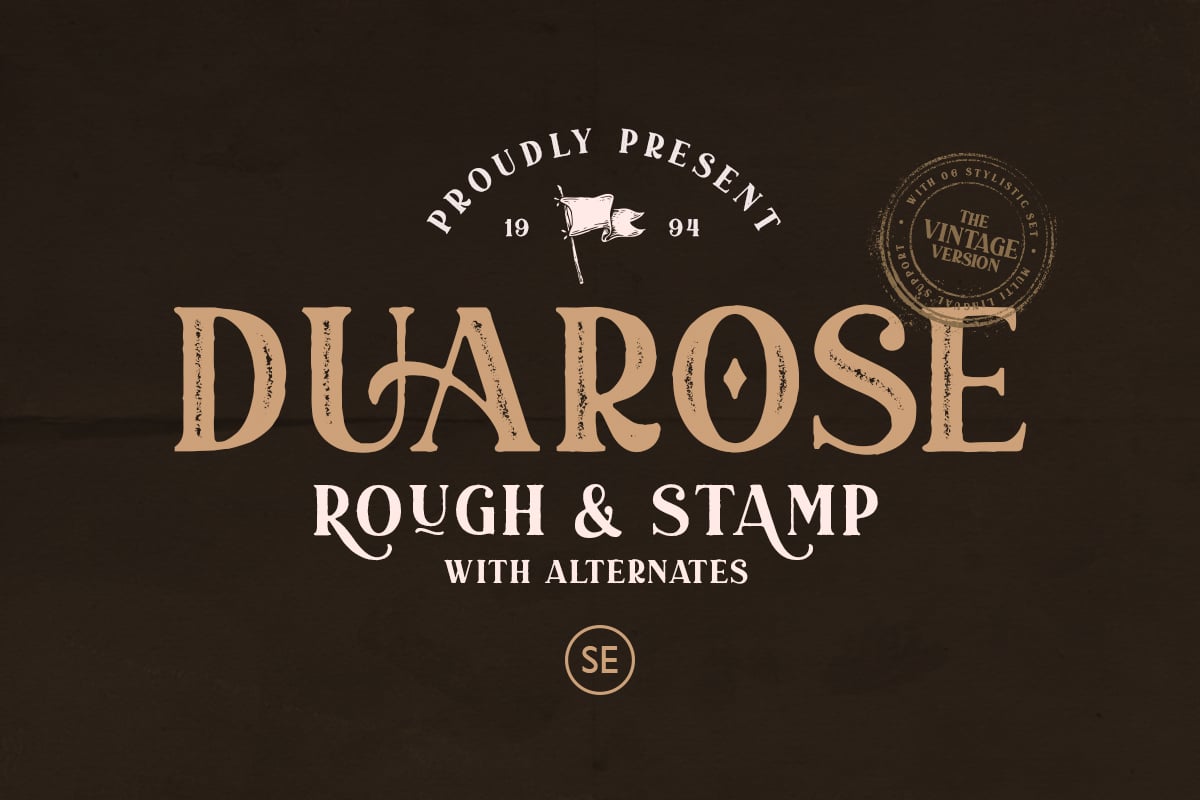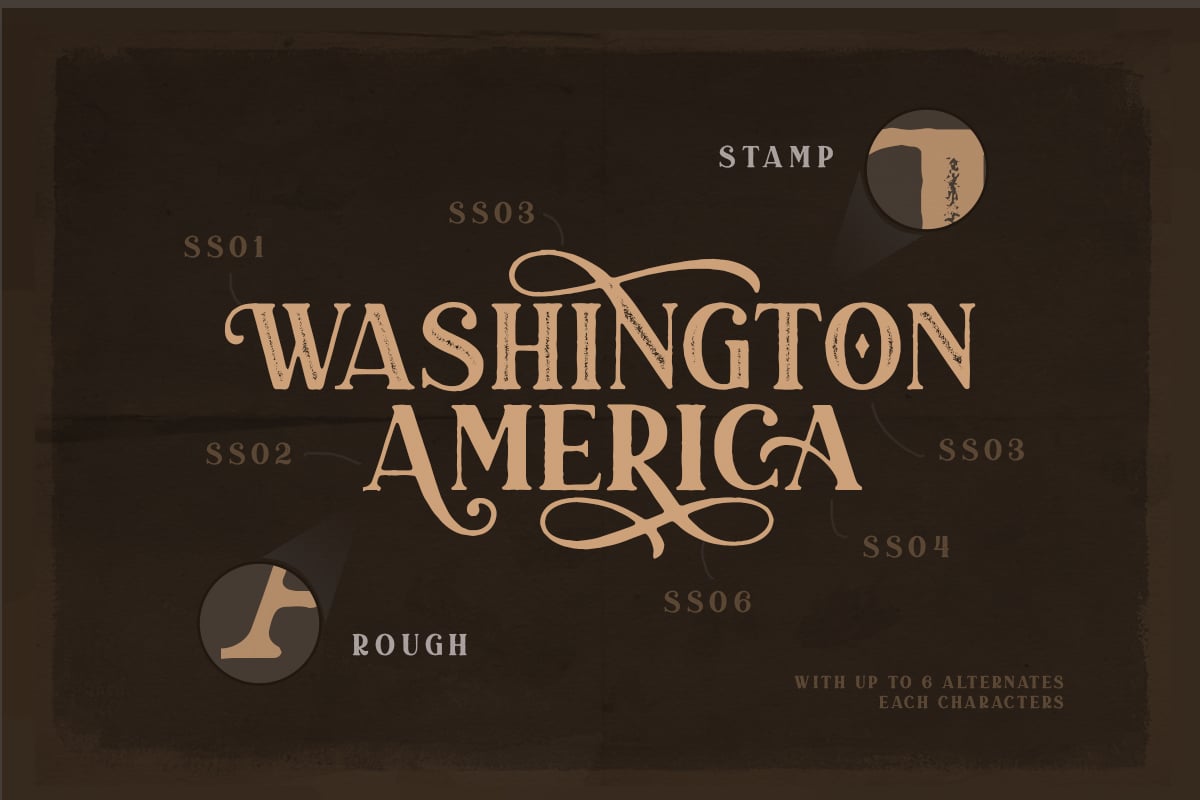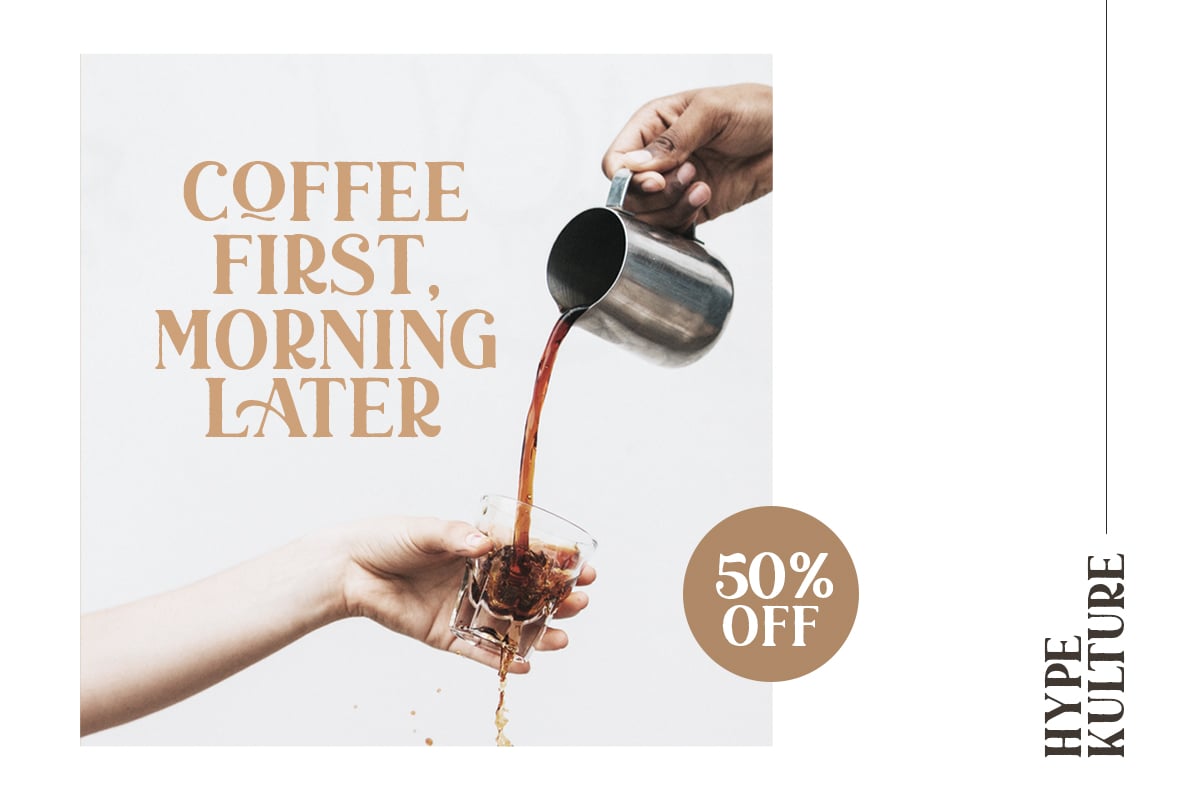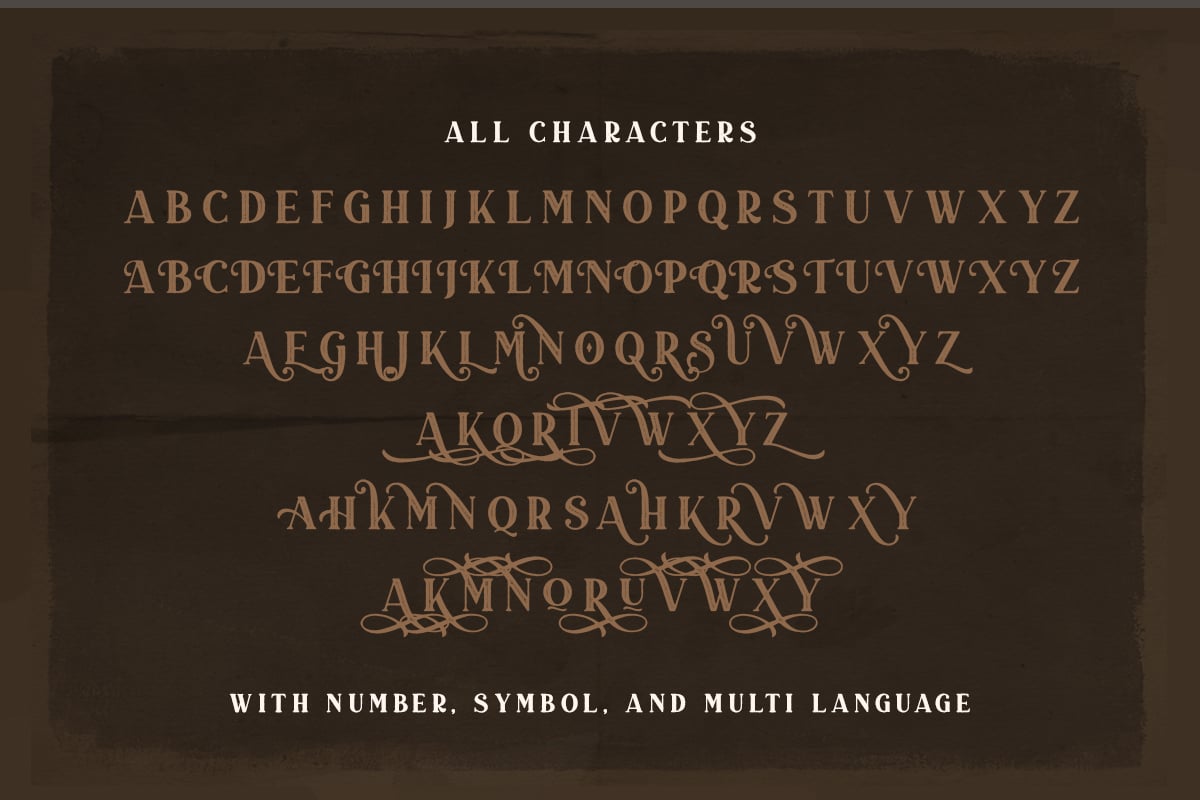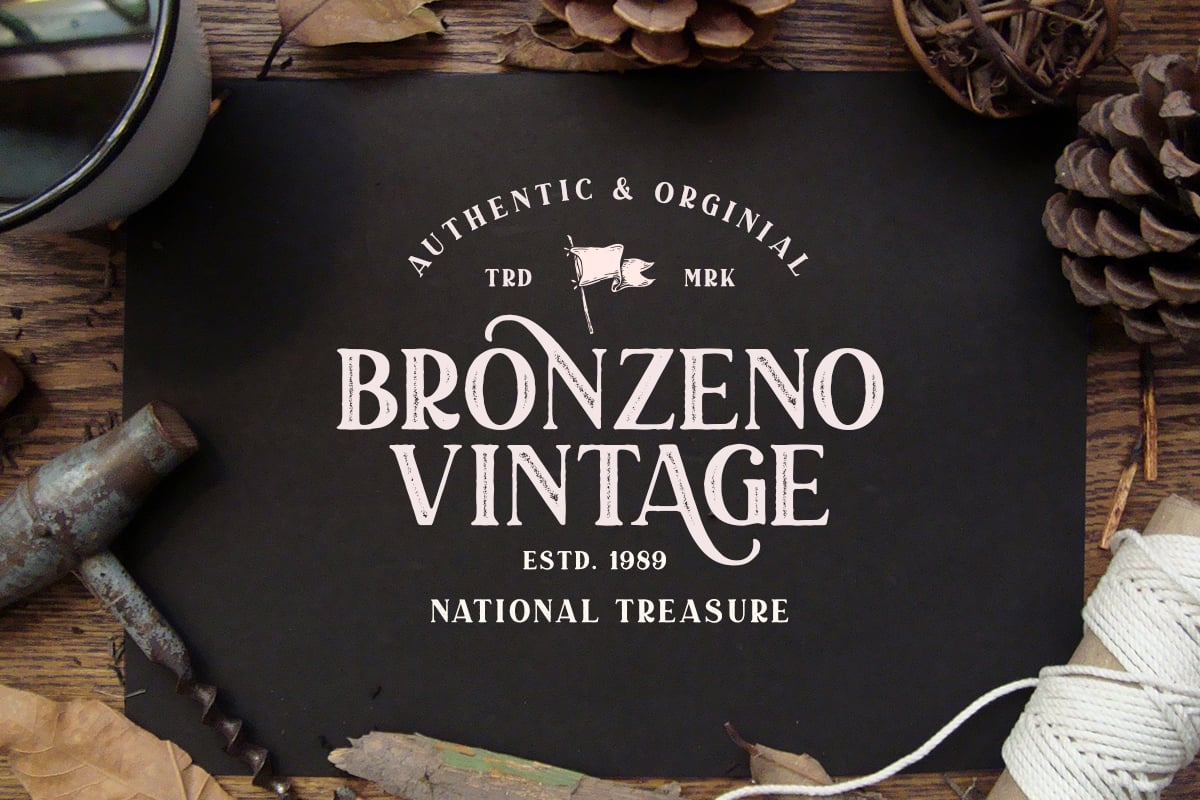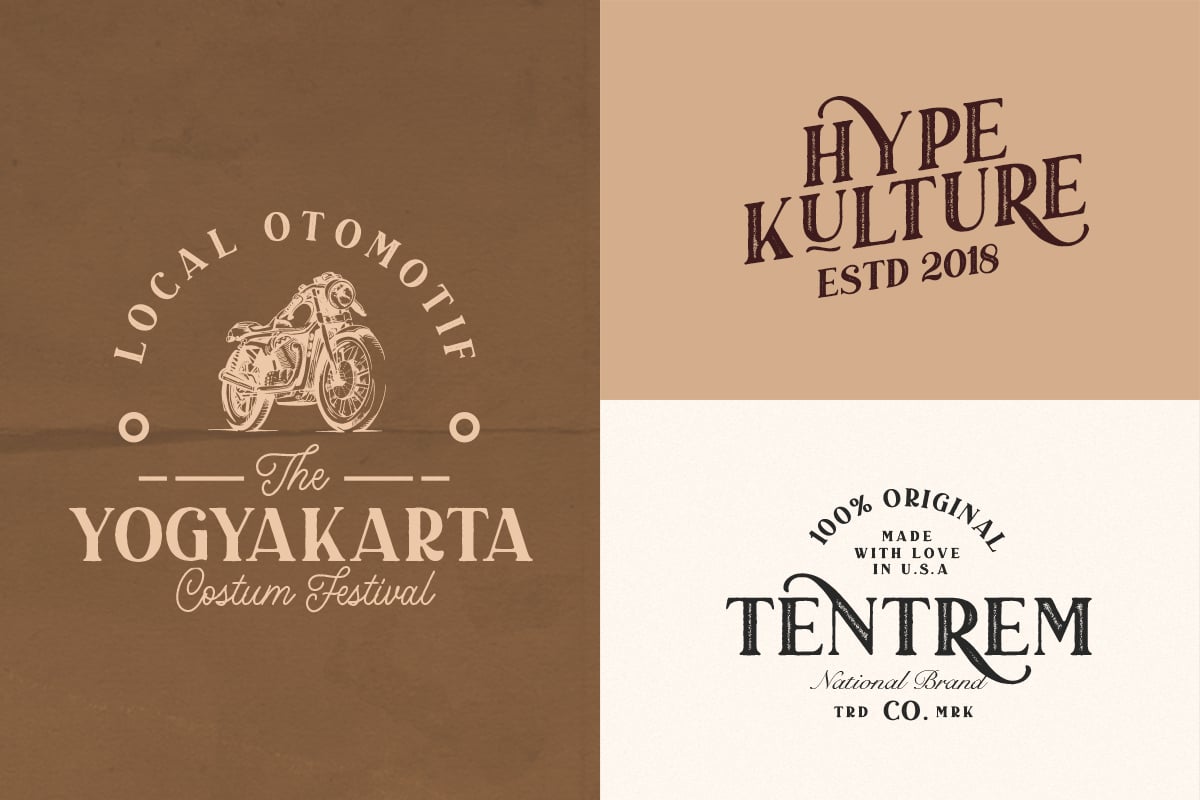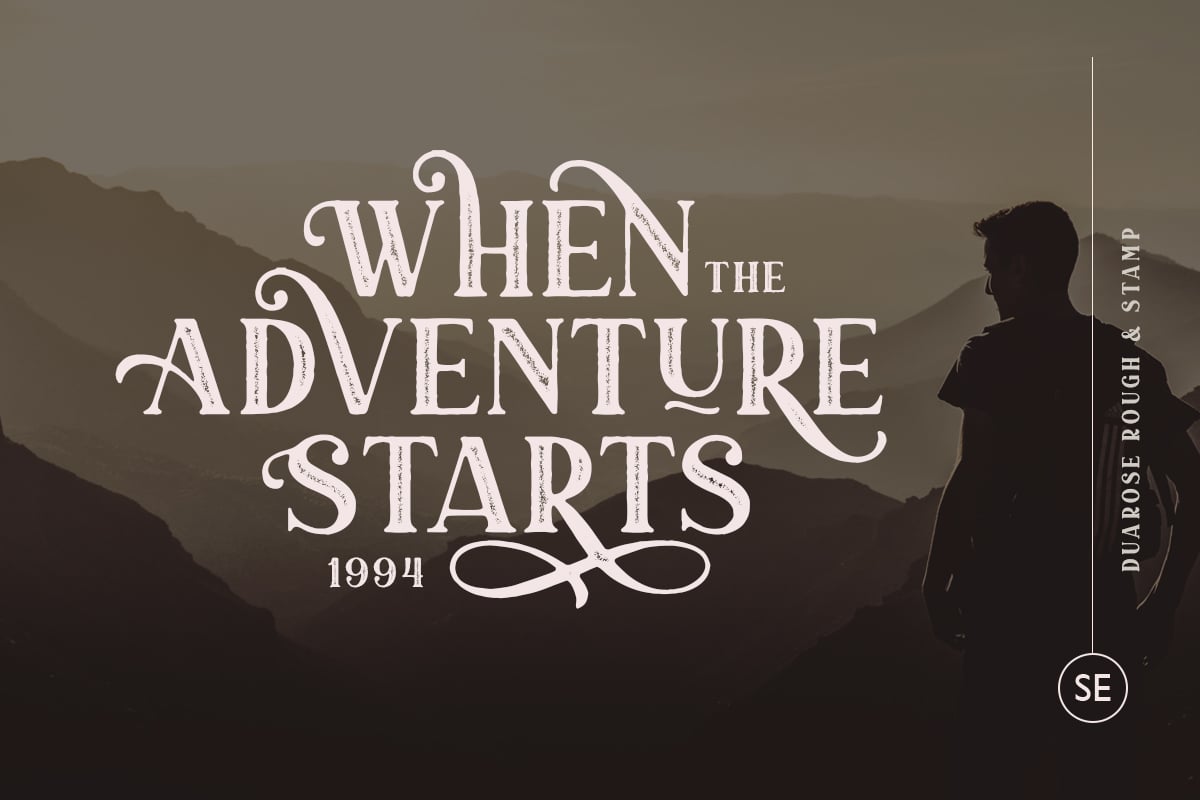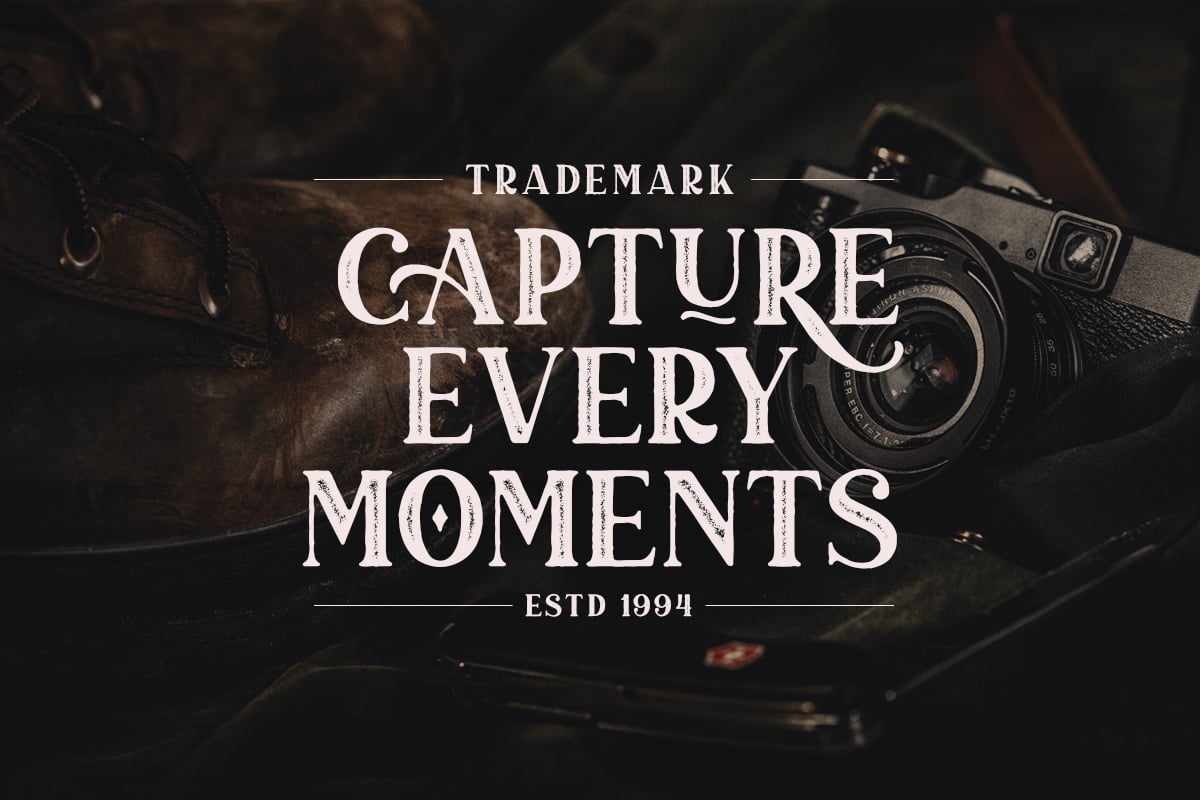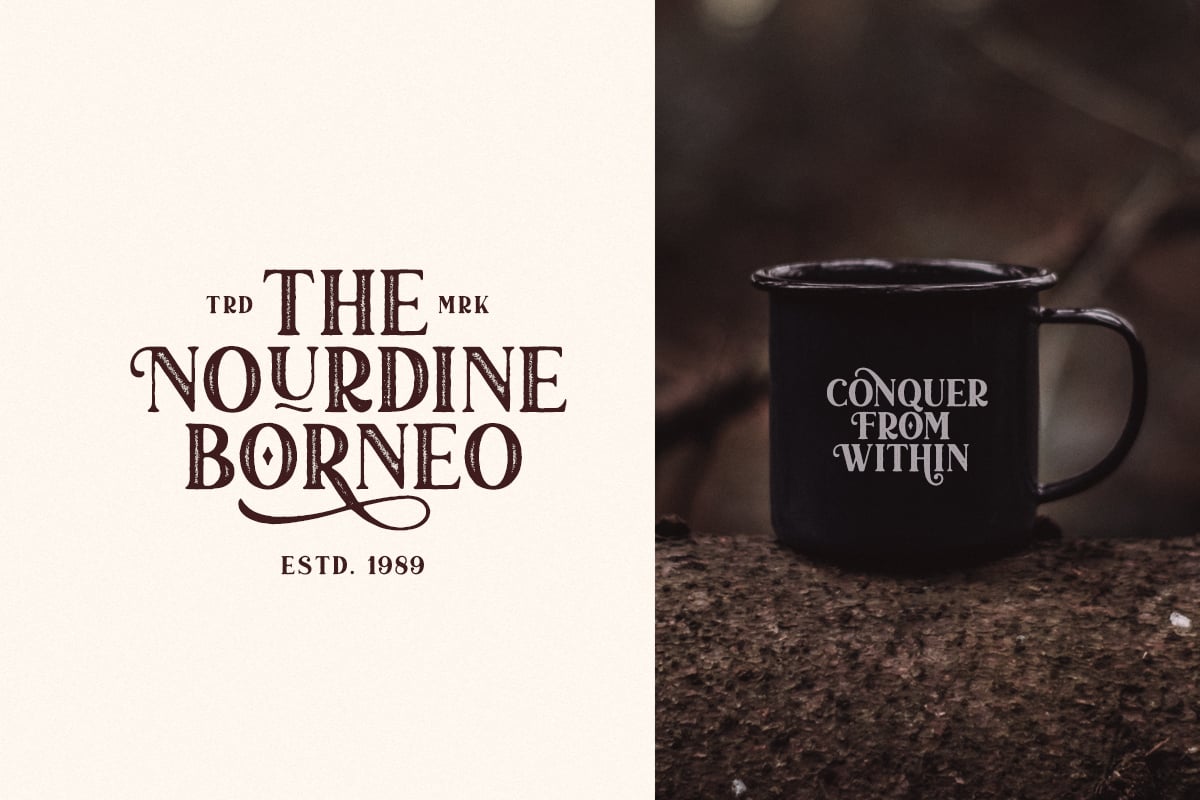
Duarose – Vintage Font (Rough & Stamp)
Duarose Serif – Vintage Font is a classic and vintage serif with a bunch of alternates up to 6 style for each characters that will make your presentation or logo even more stunning and stand out! With two style, Rough & Stamp, this font will make your design looks more handmade and vintage. You can use this font for any adventure and outdoor design. Duarose also support Multi Language. and already PUA Encoded!